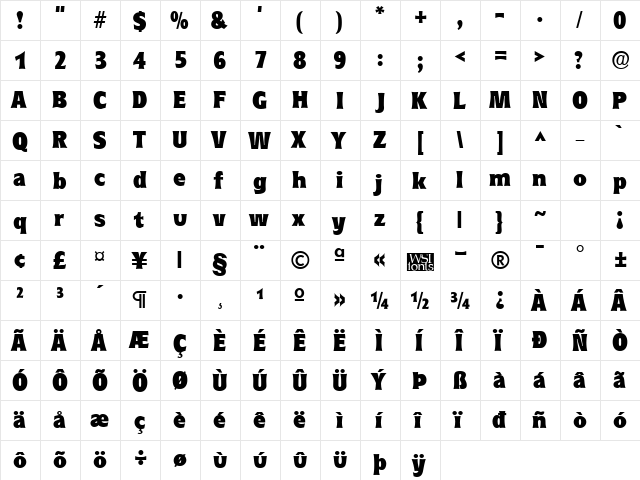
RyndersBlack Regular
Design Context for RyndersBlack Typeface
RyndersBlack is a composed and adaptable typeface that performs quietly and consistently across a wide range of design contexts.